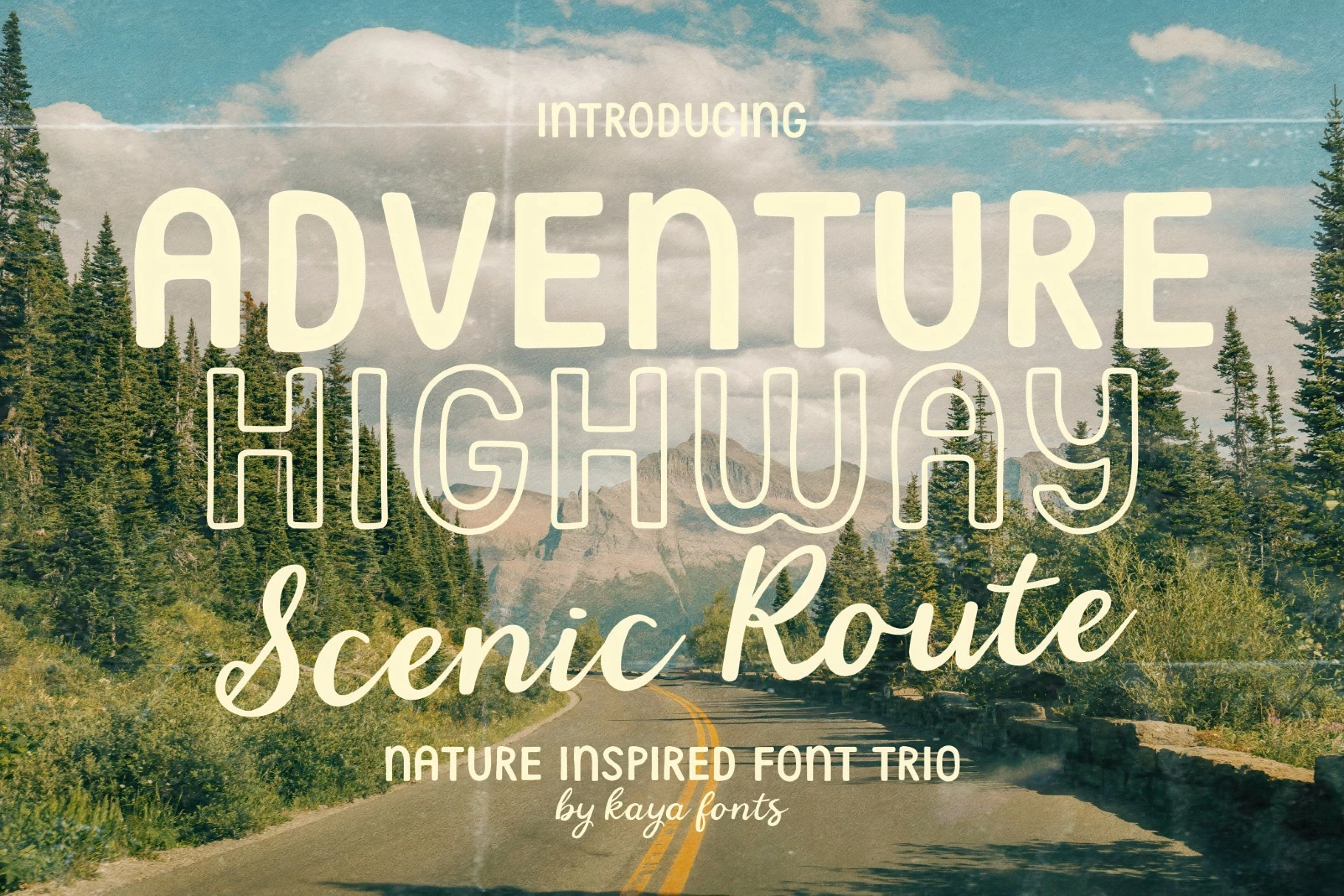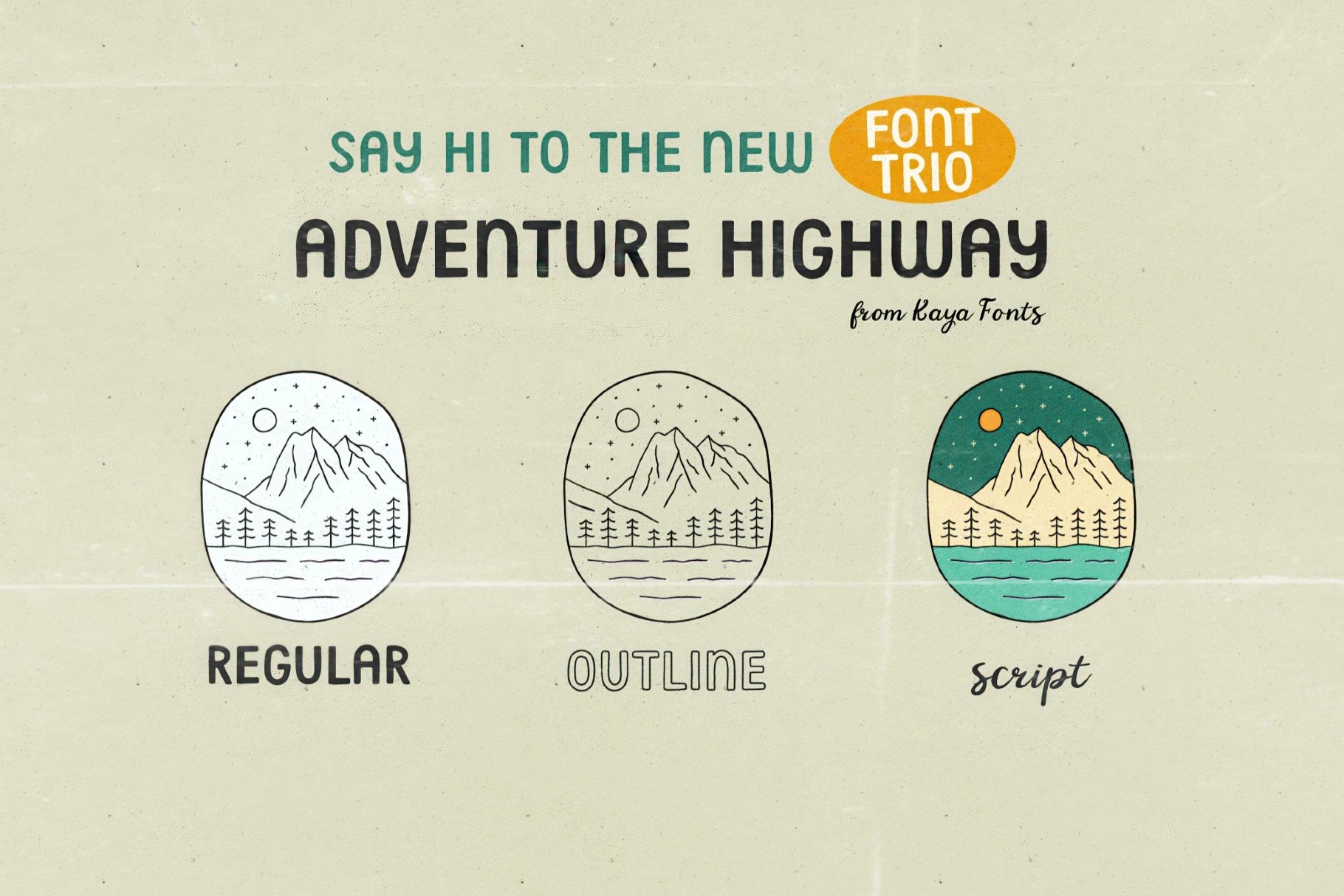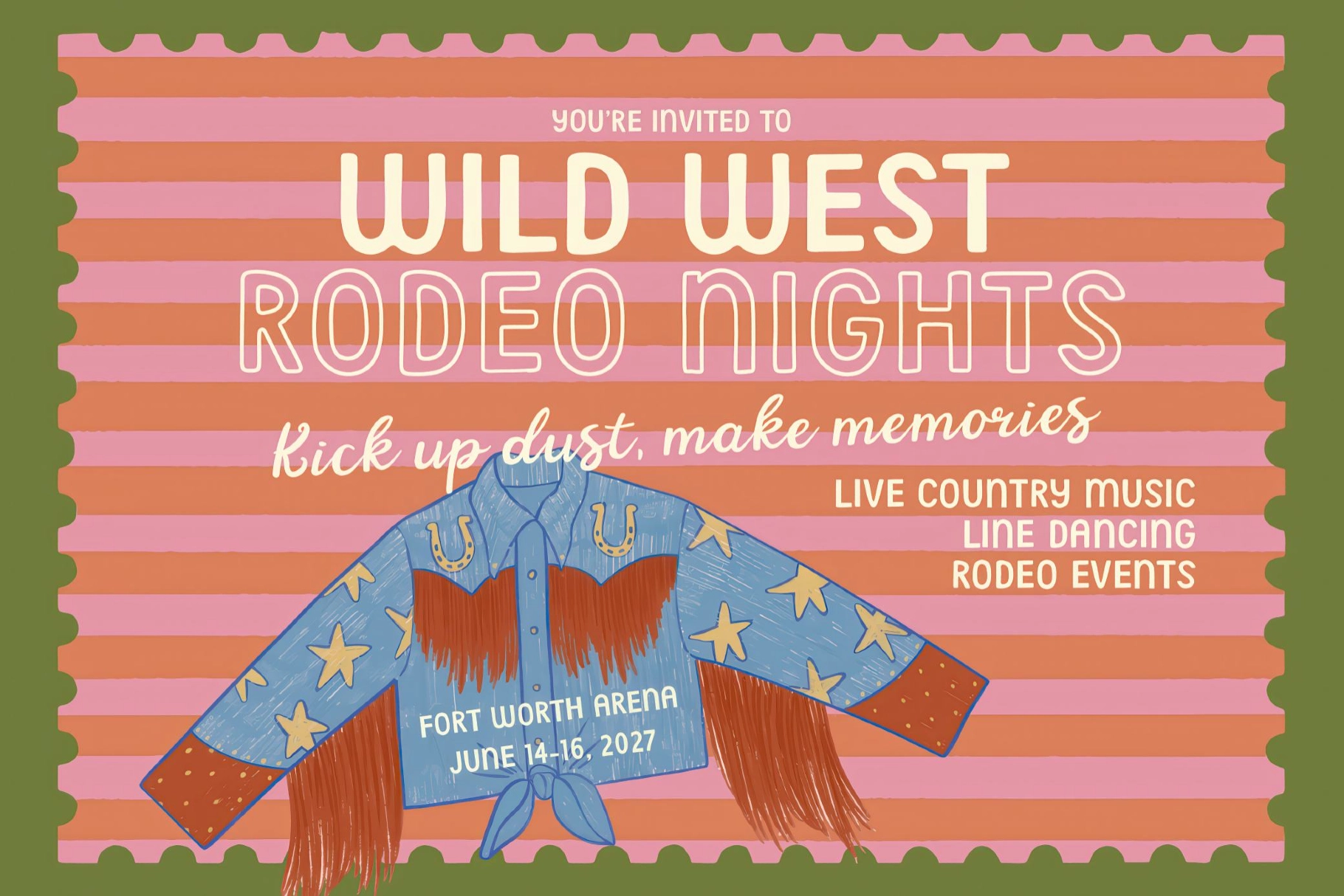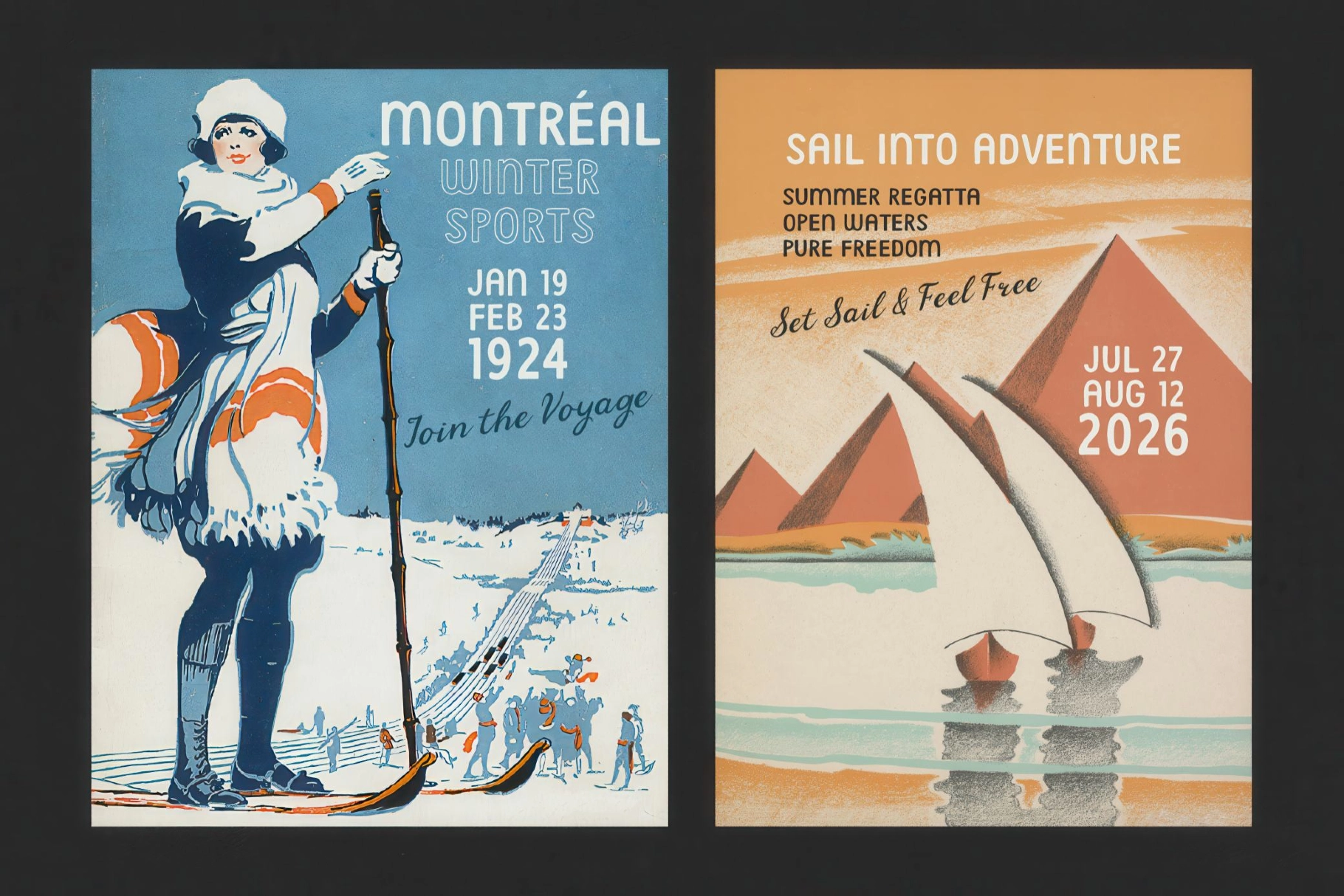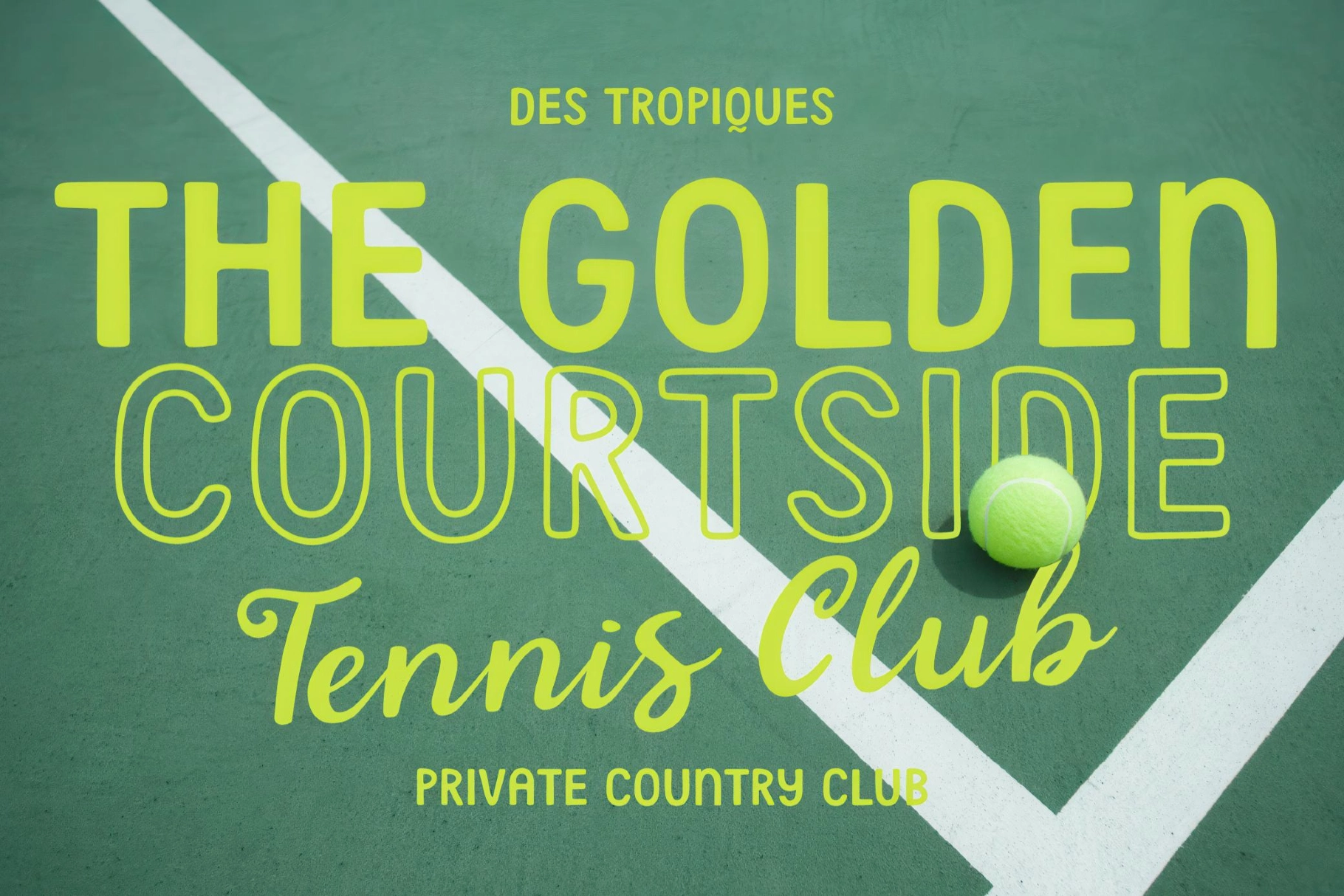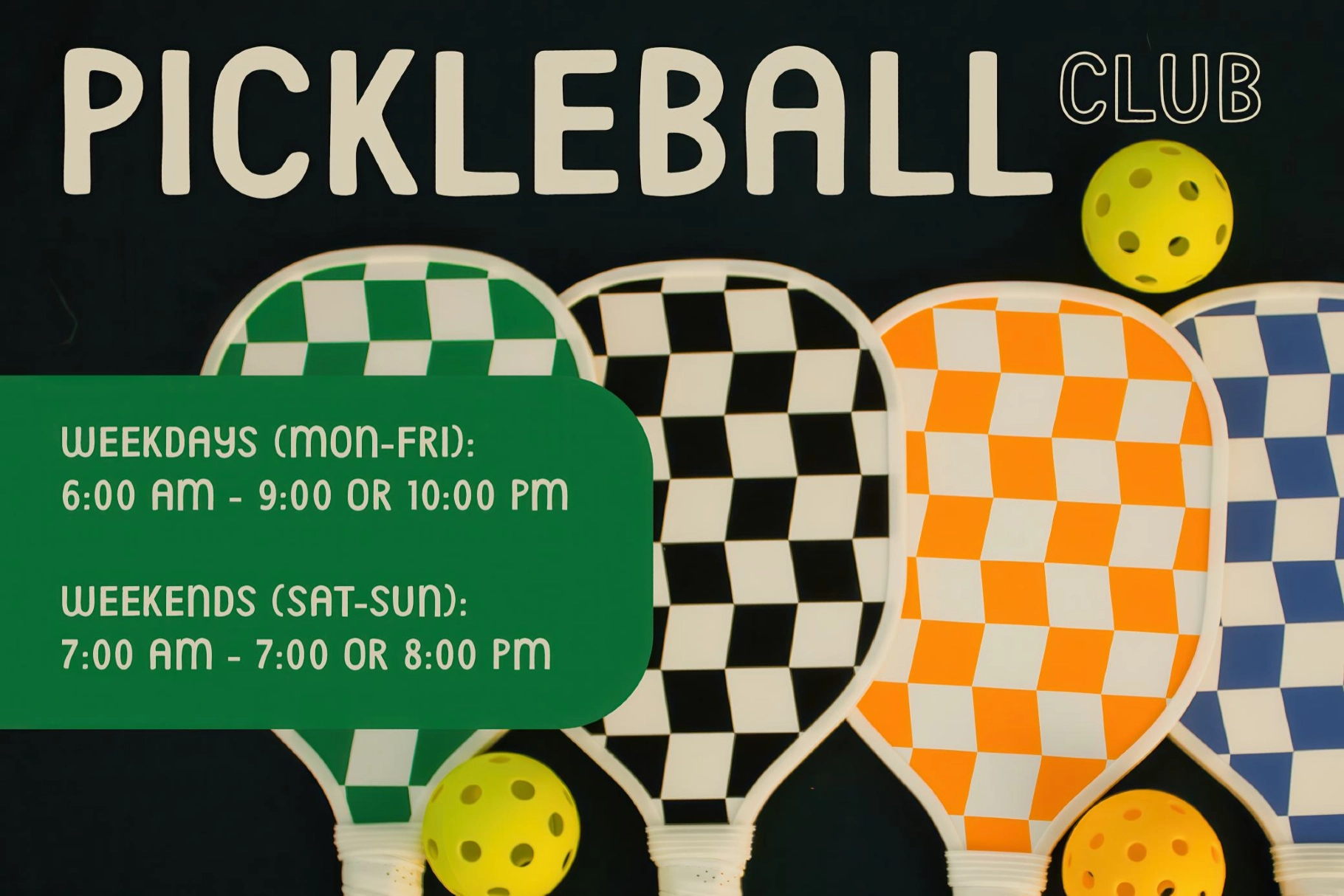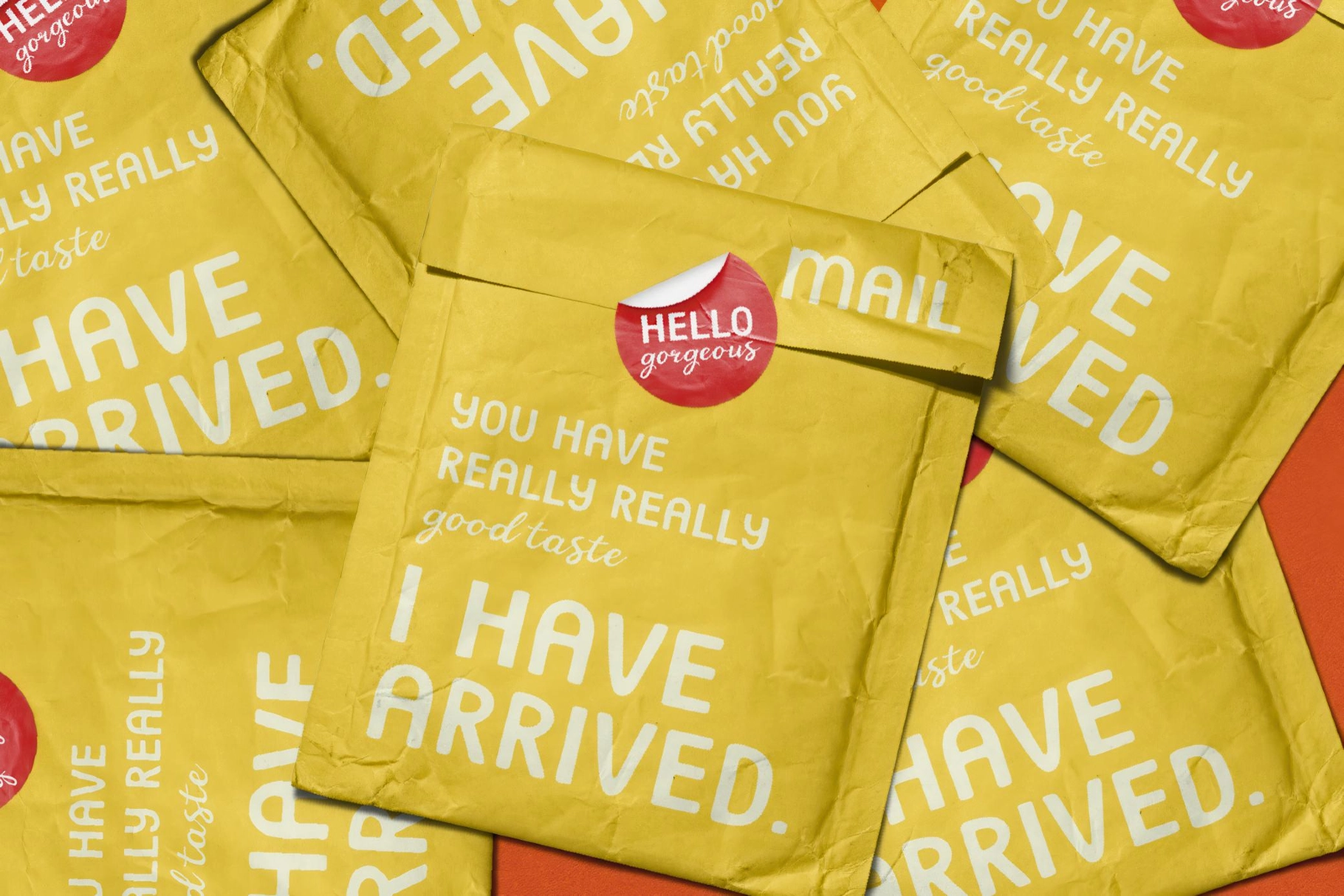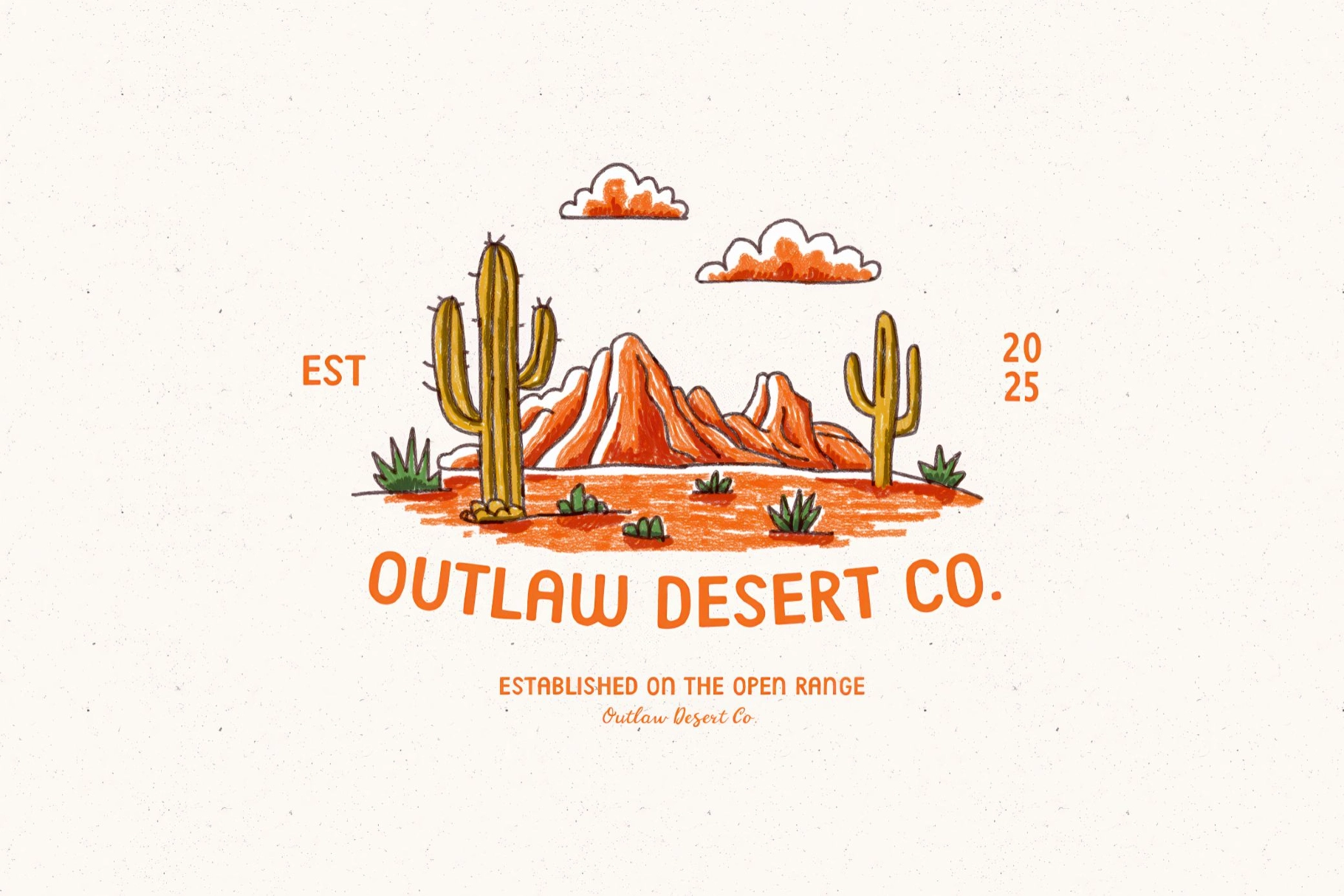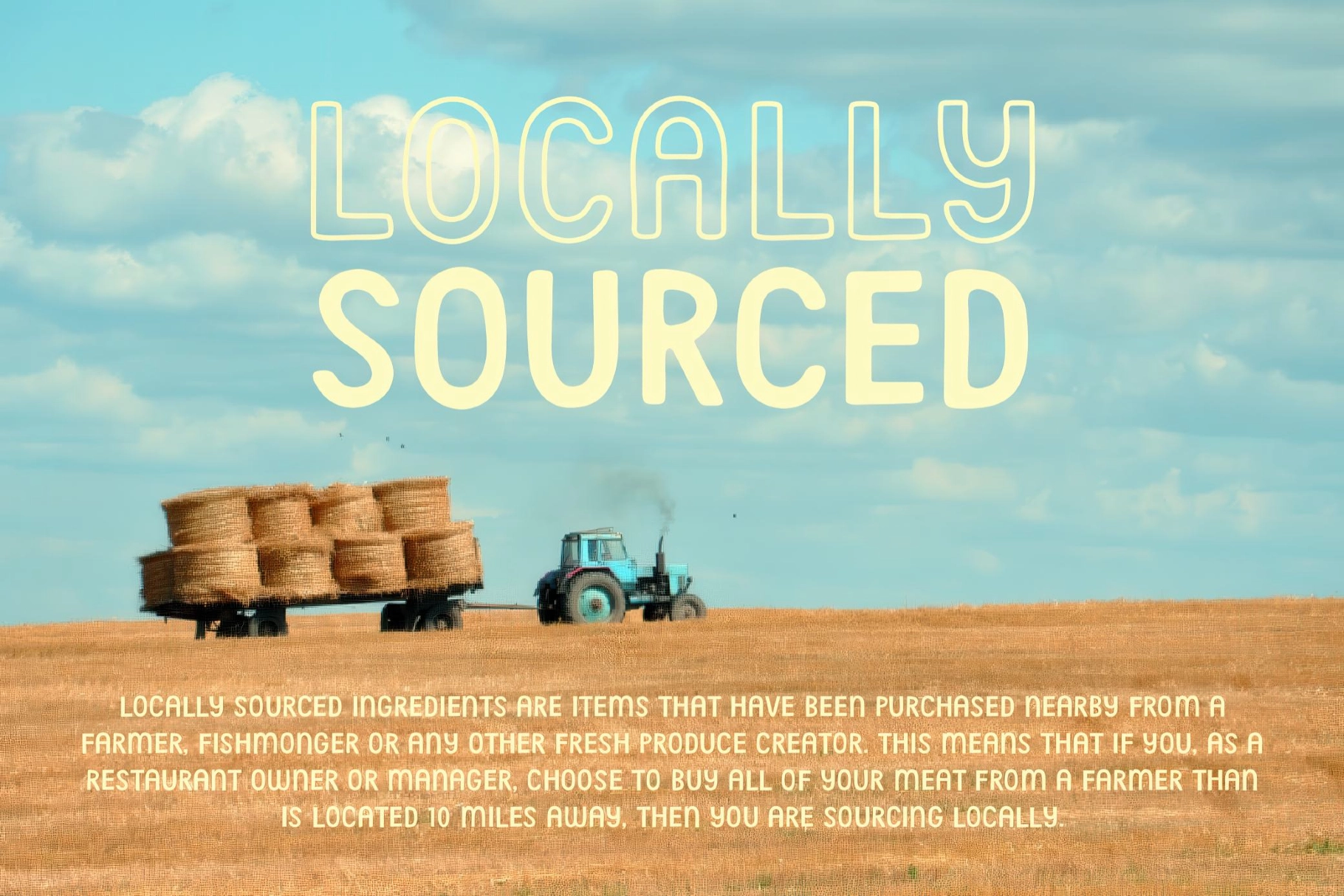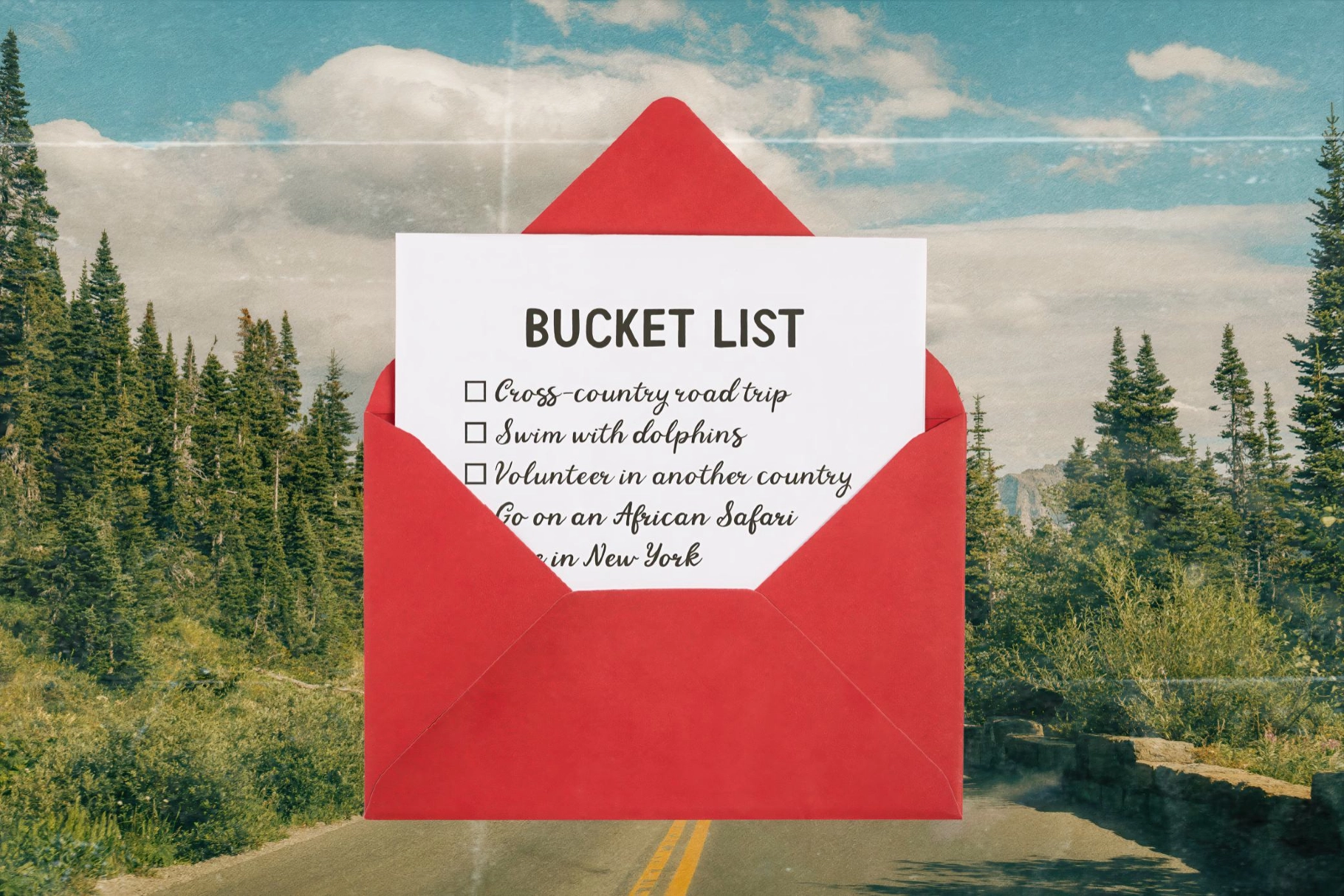
Adventure Highway Retro Nature Font
Adventure Highway
Adventure Highway-Outline
Adventure Highway-Script
Adventure Highway is a retro display font trio inspired by open-road Americana aesthetics, drawing on vintage highway maps, motel marquees, and roadside diner signs. The set embraces a solid headline cut with a matching hollow outline and a connected script, so one family covers route-sign headlines, two-tone badges, and handwritten captions.
The headline weight anchors a poster or a logotype on its own, and the outline drops cleanly over a photographed landscape or stacks behind the solid cut for a layered patch. The script takes the softer lines — byway names, city tags, and handwritten captions under a hard-edged title.